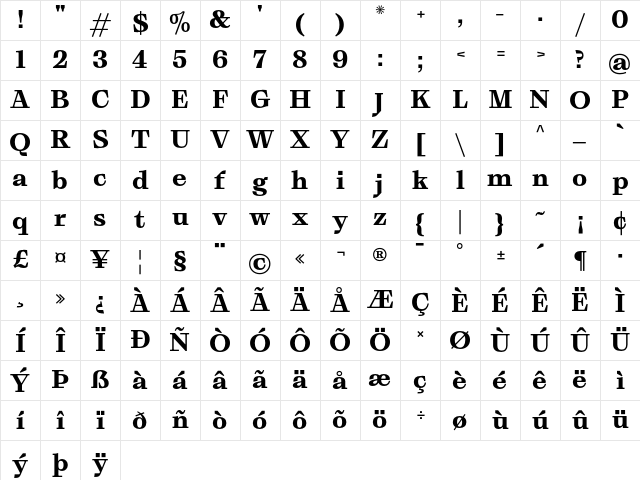
Grafier Heavy is a composed and adaptable typeface that performs quietly and consistently across a wide range of design contexts.
Pro Tip: Use Grafier Heavy in both headline and body roles to test its range before committing to a single application.